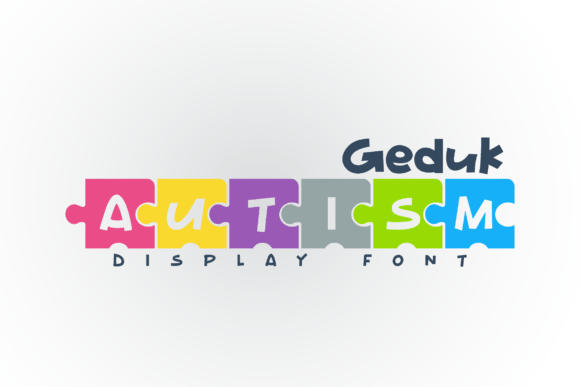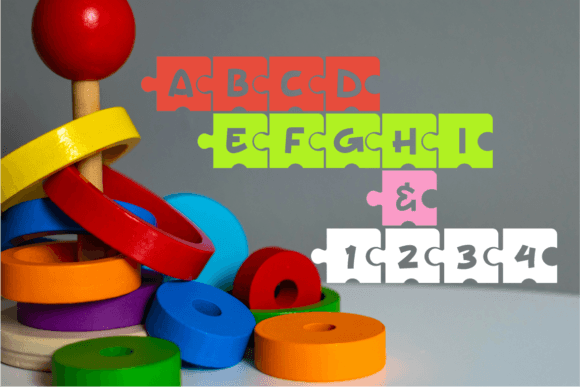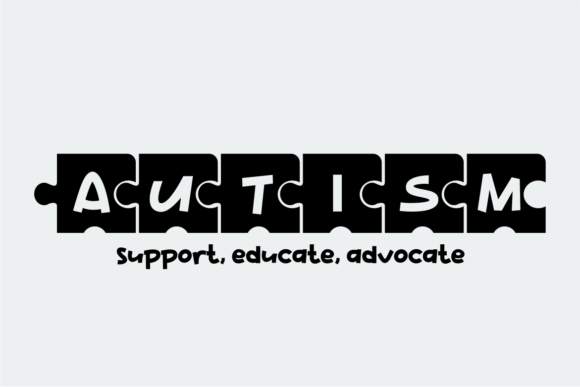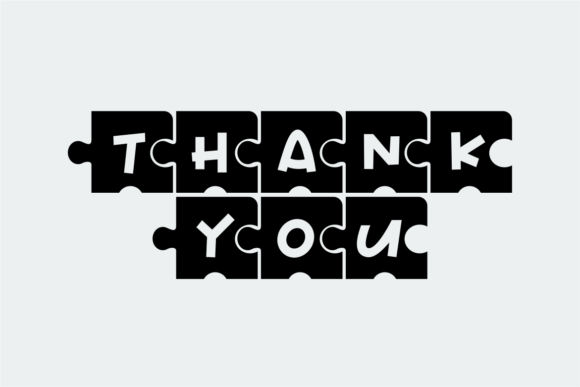
Geduk Autism Font
About the Geduk Autism Font
Make a bold statement with Geduk Autism Font, a powerful and memorable font. Introducing Geduk Autism Font: a special decorative font crafted with letters encased within puzzle pieces. Designed with autistic children in mind, it celebrates their limitless enthusiasm and unique perspectives. Each letter is a piece of the puzzle, representing the diversity and beauty of autism. Perfect for creating engaging materials tailored to their needs and fostering creativity and joy in learning.
Geduk Autism Font’s playful, yet structured design works best in headlines, short texts for posters, or children’s book titles where its unique character can shine. It’s ideal for branding projects focused on inclusivity and neurodiversity, adding a distinct visual element to logos or packaging. Avoid using it for body text or long paragraphs; the puzzle-piece design can become visually overwhelming and hinder readability.
Its friendly and slightly quirky personality pairs well with clean sans-serif fonts like Open Sans for body text, creating a balance between playful and accessible. Alternatively, a simple serif typeface such as Lora could add a touch of classic elegance, softening Geduk Autism Font’s more whimsical aspects. For a more modern feel, consider pairing it with a geometric sans-serif font such as Montserrat.
Geduk Autism Font Usage Examples
Geduk Autism Font Example